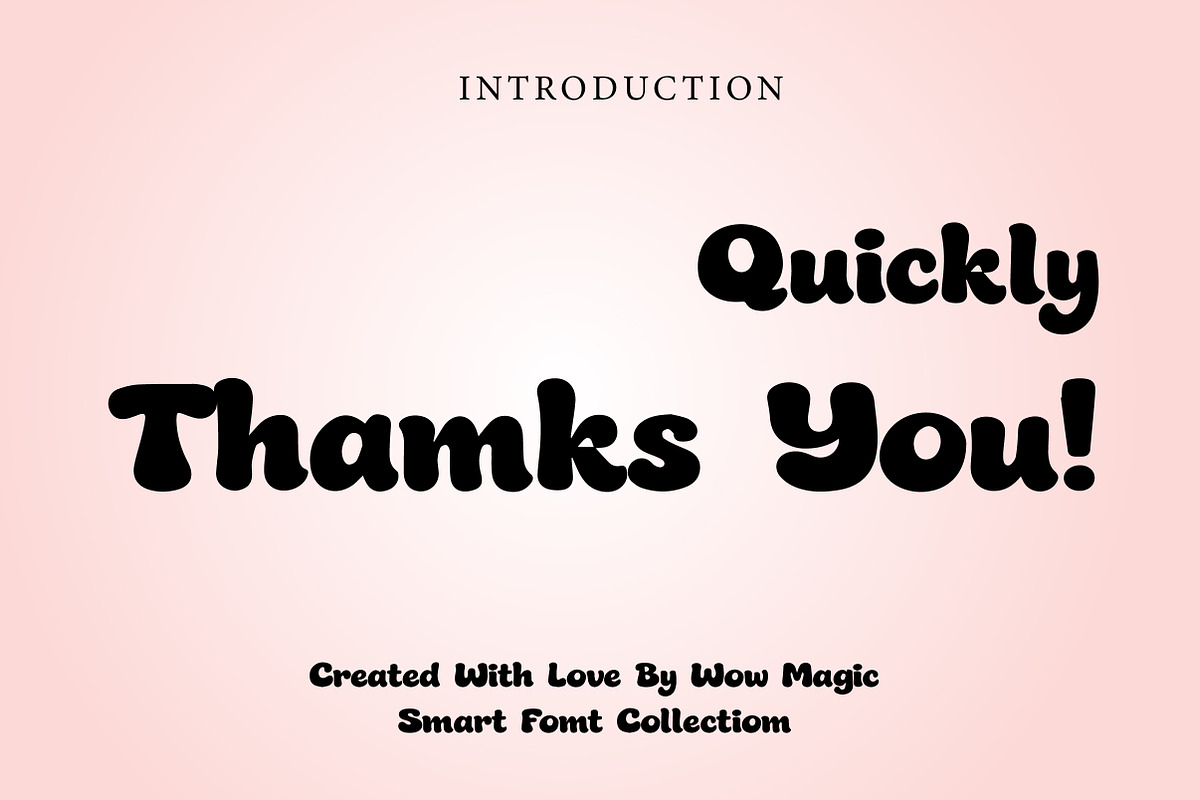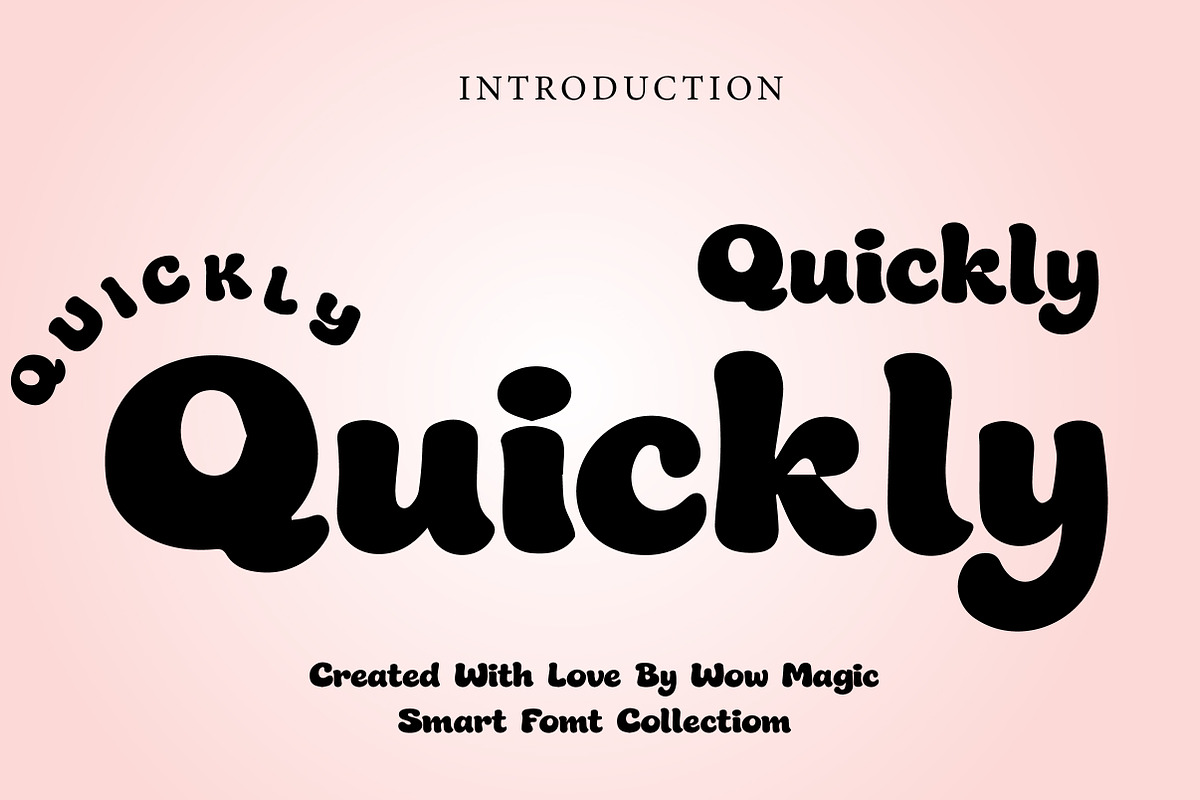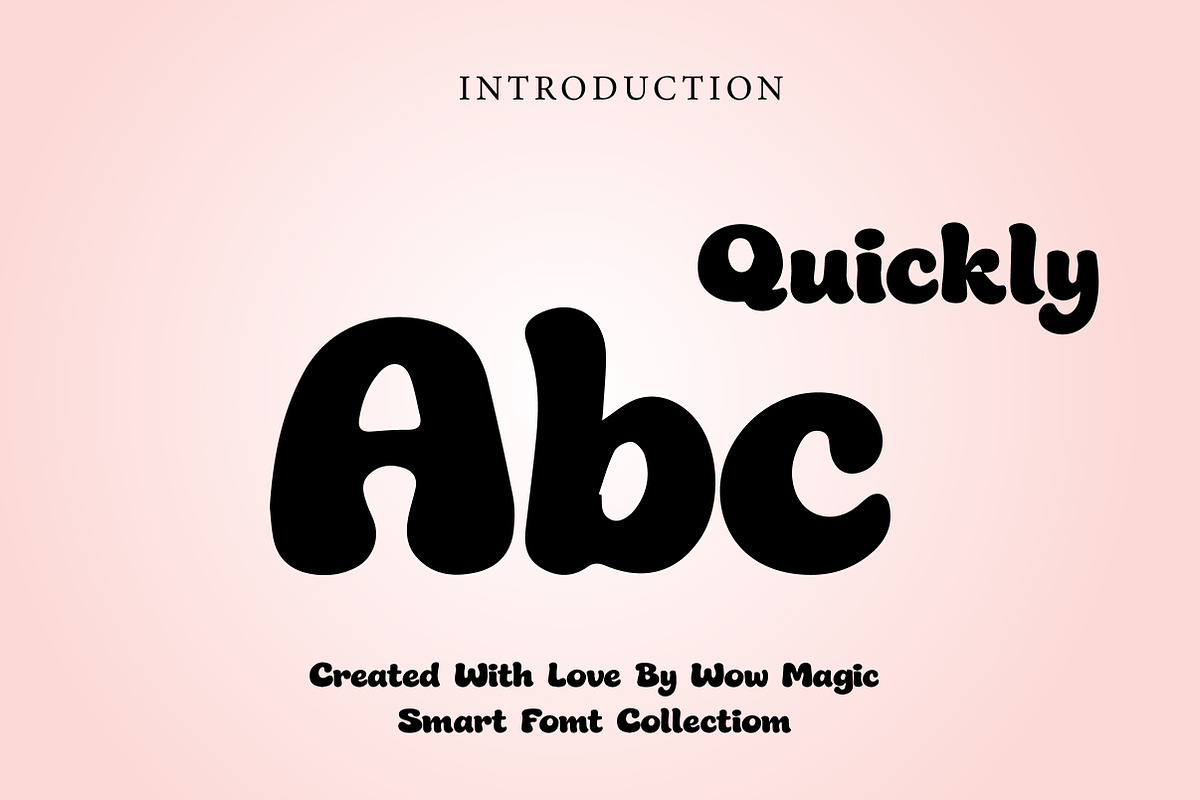
Quickly
Quickly is a bold and playful display font designed with thick rounded shapes and smooth bubbly curves. Its chunky letterforms and friendly structure create a fun, energetic personality that instantly grabs attention and adds charm to any design.
The soft edges and compact proportions give the font a cheerful and approachable look, making it perfect for kids branding, posters, packaging, logos, social media graphics, book covers, and creative headline designs. Quickly brings a lively and modern style while remaining clear and highly readable.
Whether you’re designing playful branding, fun product packaging, or eye-catching titles, Quickly delivers a joyful and bold typographic presence that stands out beautifully in both digital and print projects.
Kids Branding
Posters & Flyers
Cartoon Titles
Playful Headlines